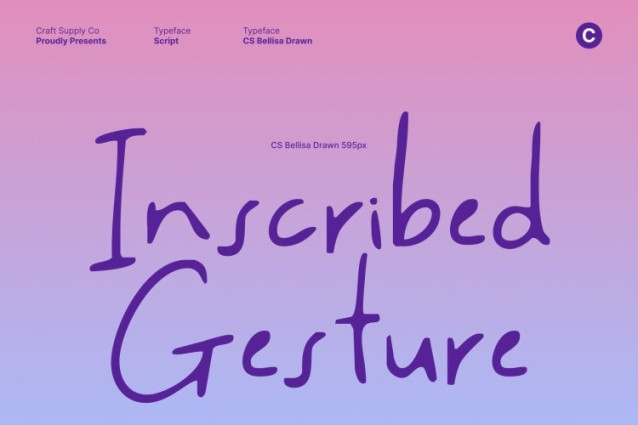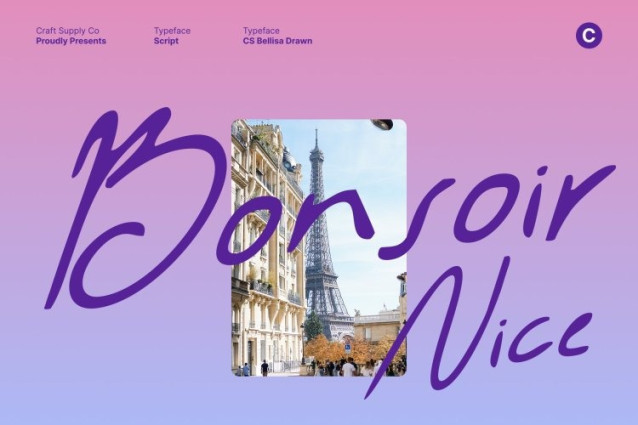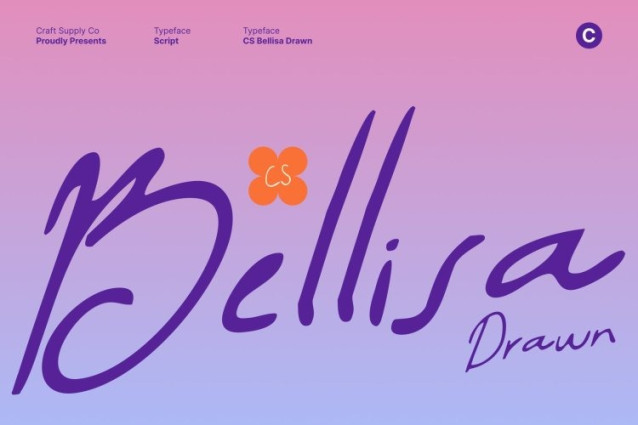
CS Bellisa Drawn Font This is a friendly handwritten font that blends casual sans serif clarity with expressive, human warmth. Its natural stroke flow creates an approachable and relaxed personality, making every word feel genuine and full of life. Designed to look effortlessly handwritten, this font brings emotion and friendliness into your designs.
Handcrafted Texture with Authentic Character
The drawn effect gives each letter subtle irregularities and organic texture, enhancing its handcrafted feel. These small imperfections add individuality and charm, ensuring the font feels personal rather than mechanical. The result is a unique visual voice that feels honest, relatable, and creatively expressive.
Casual Style with Modern Versatility
Balancing playfulness and clarity, this font adapts easily to a wide range of modern design needs. Its relaxed structure keeps layouts light and engaging while remaining readable and clean. This makes it ideal for designs that want to feel informal yet polished, creative yet accessible.
Perfect for Branding and Creative Projects
This font works beautifully for branding, posters, packaging, social media graphics, quotes, and digital content. Its warm, expressive style helps brands communicate friendliness and authenticity, turning simple messages into inviting and memorable visuals.